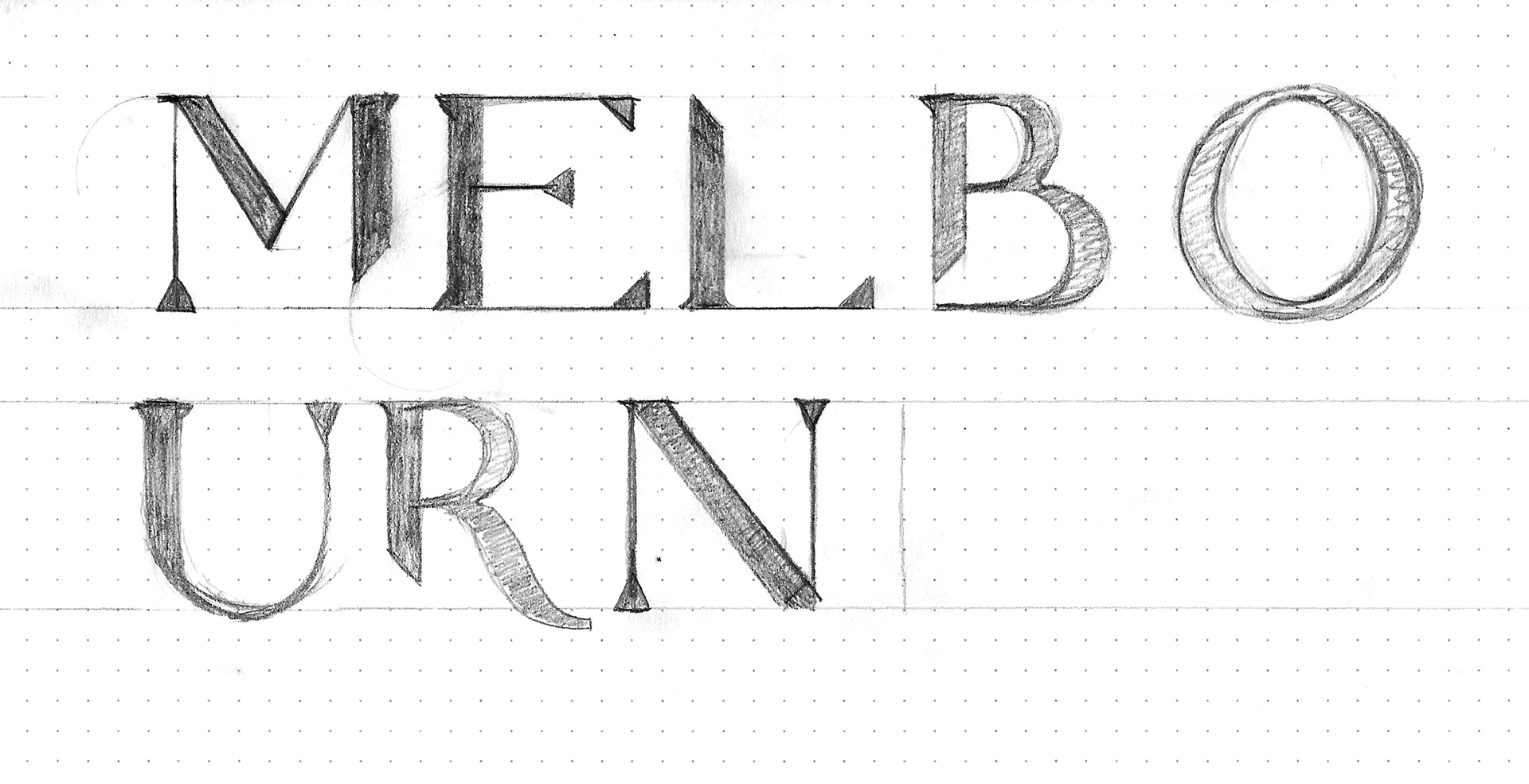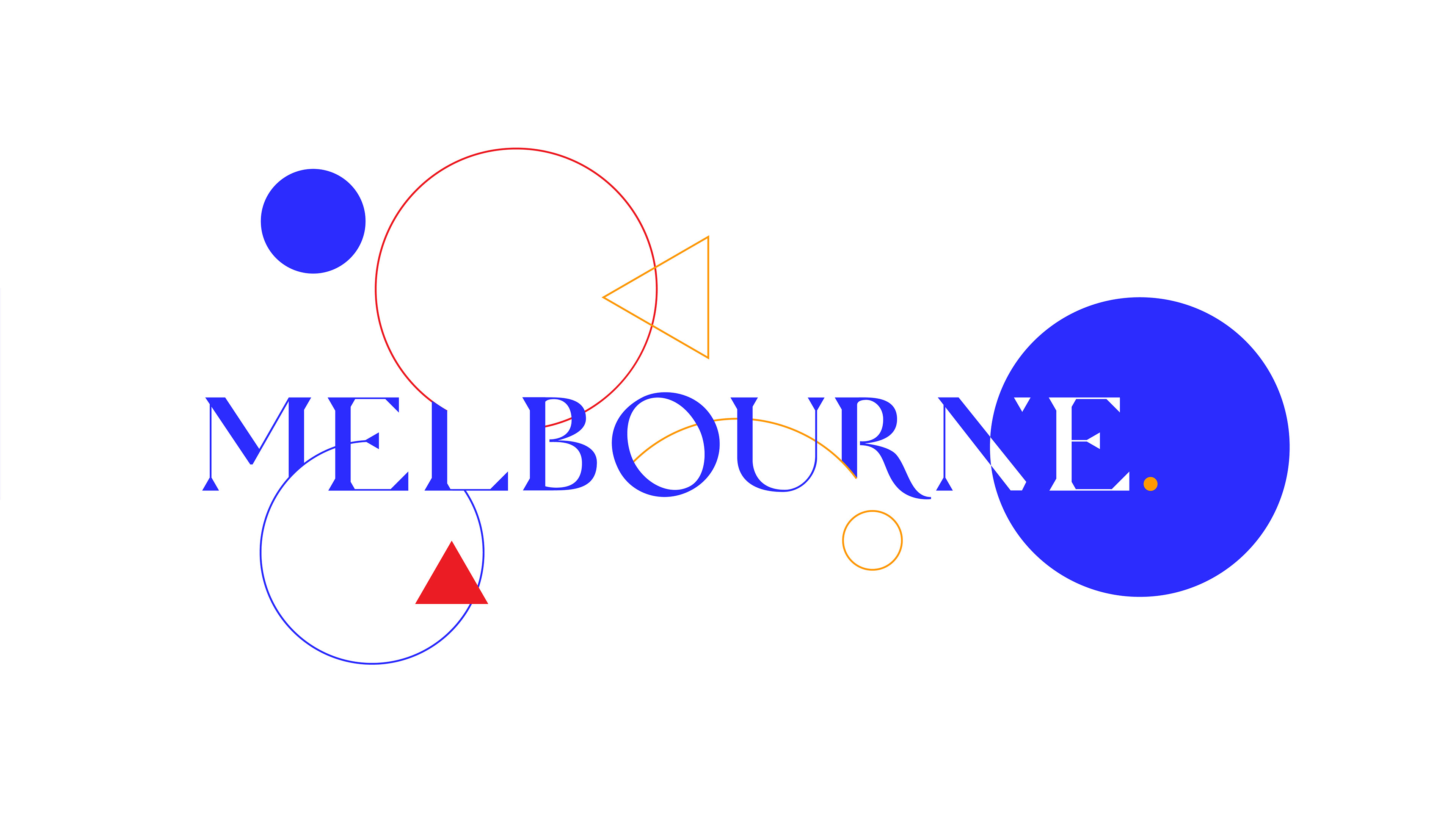
The initial lettering for this project was a self directed exercise in designing type and letterforms, I wanted to create characters based on geometric shapes and repeating segments, using a grid as a base.